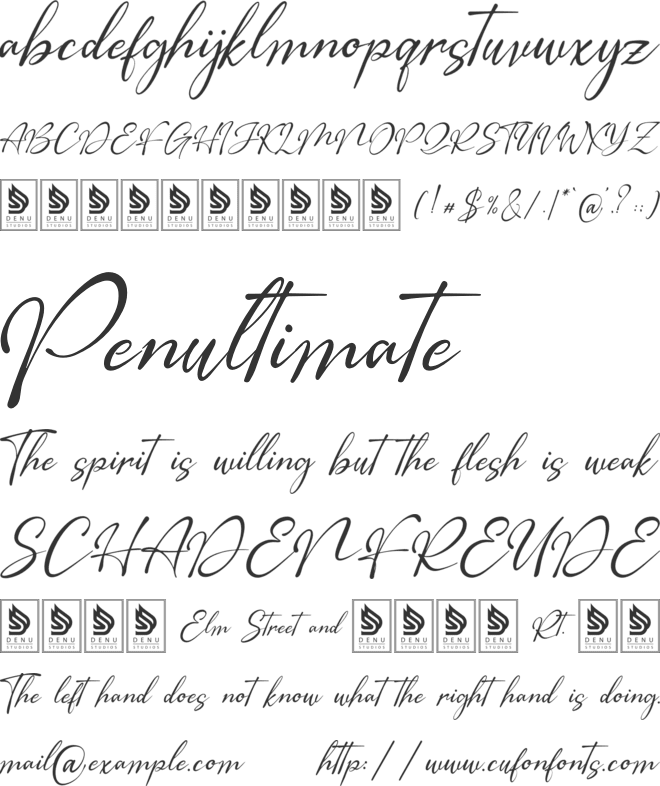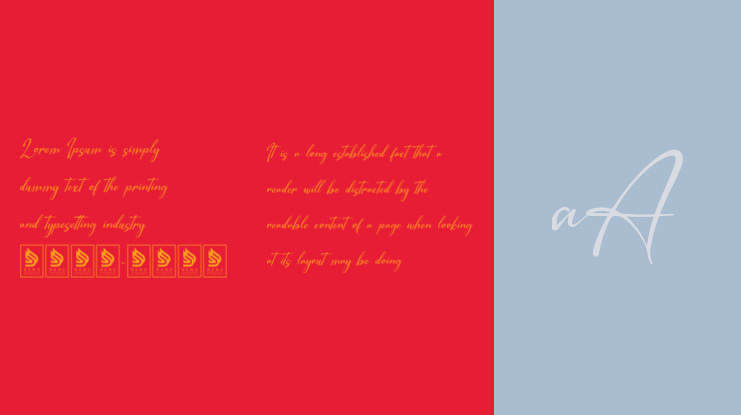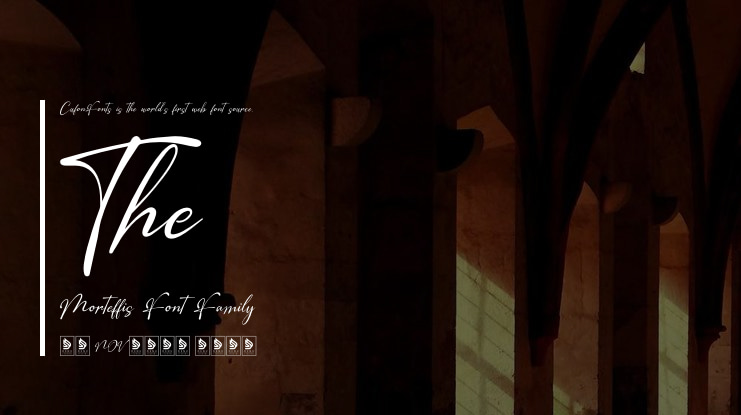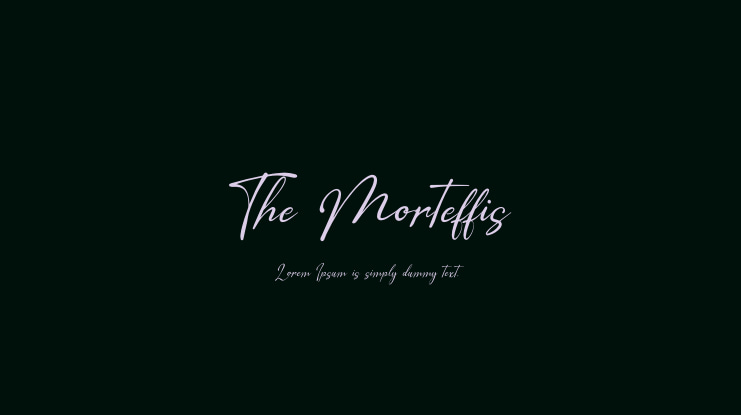
The Morteffis | Modern Chic Calligraphy
The Morteffis is a stylish calligraphy font, perfect for a wide range of projects, including:
- Logos and branding - Homeware designs - Product packaging - Mugs and quotes - Posters and shopping bags - T-shirts and book covers - Name cards and invitation cards - Greeting cards and labels - Photography watermarks - Special events
...and any other projects that require a touch of Modern Chic Calligraphy.